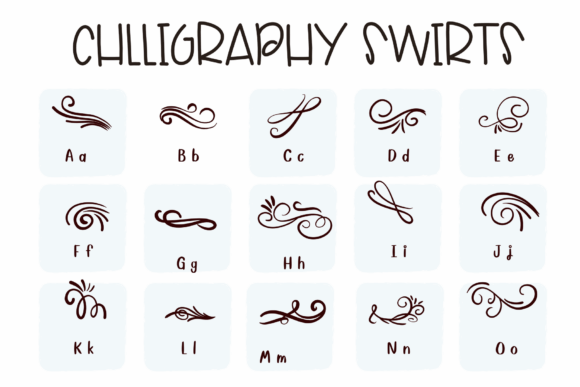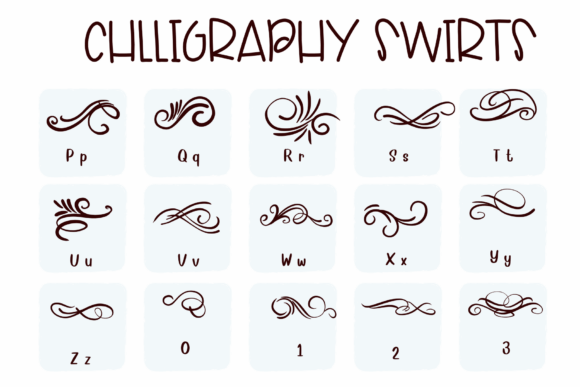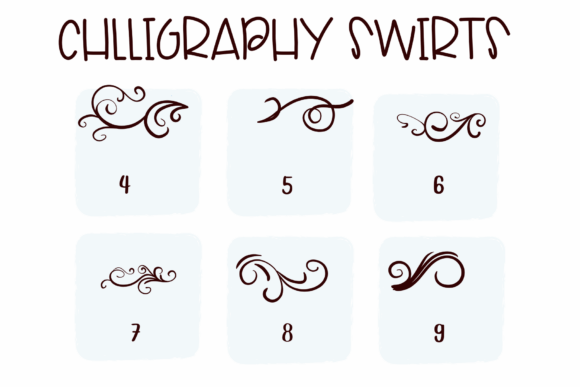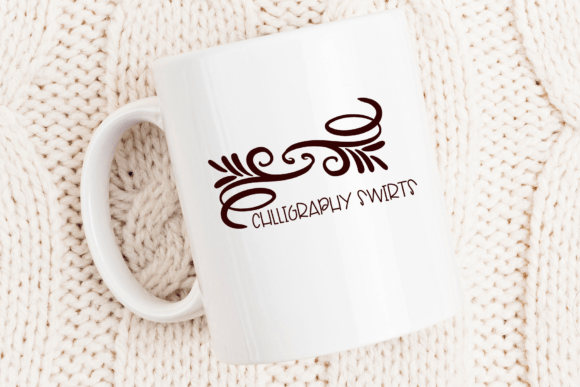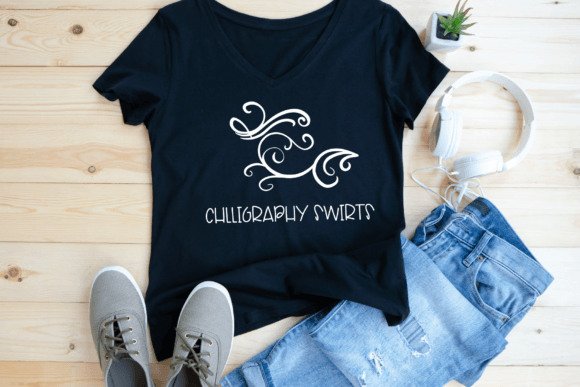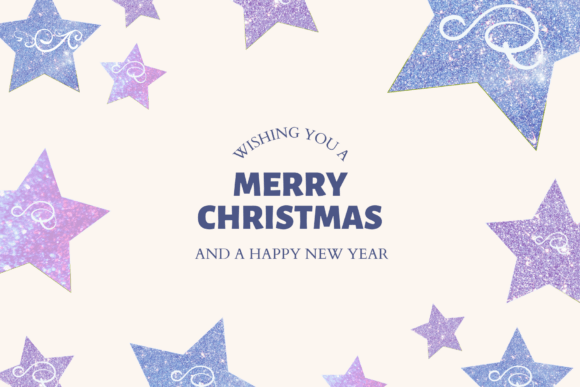
The Magic of Calligraphy Swirls Font: Elevate Your Creative Projects
I still remember the time I was working on a wedding invitation project, and I just couldn’t find the right font to give it that extra special touch. The client wanted something elegant, yet playful, and I was on a mission to deliver. That’s when I stumbled upon Calligraphy Swirls Font, a beautiful dingbats font with a sketched style that completely transformed my design. In this article, I’ll share my experience with this amazing font, its features, and how to make the most of it in your creative projects.
An Honest Review of Calligraphy Swirls Font
- ✨ Unique and elegant swirls that add a touch of sophistication to any design
- ✅ Easy to use and navigate, even for those new to calligraphy fonts
- 🎨 Versatile and adaptable to various design styles and projects
While Calligraphy Swirls Font is an amazing addition to any design project, there are a few things to keep in mind:
- 🤔 Some swirls may not be suitable for very small font sizes, as they can become too intricate
- ⚠️ Limited character set compared to other fonts, but still offers a wide range of creative possibilities
The Designer Inspiration Behind Calligraphy Swirls Font
Calligraphy Swirls Font was inspired by the traditional art of calligraphy, with a modern twist. The designer aimed to create a font that would be both elegant and playful, perfect for a variety of creative projects. The result is a beautiful, unique font that’s sure to add a touch of sophistication to any design.
Q: What type of projects is Calligraphy Swirls Font best suited for?
A: Calligraphy Swirls Font is perfect for wedding invitations, DIY projects, crafts, decorations, logos, and many other creative ideas.
Q: Is Calligraphy Swirls Font easy to read?
A: While Calligraphy Swirls Font is a decorative font, some swirls may be more intricate than others. However, the font is still legible and easy to read, even at smaller font sizes.